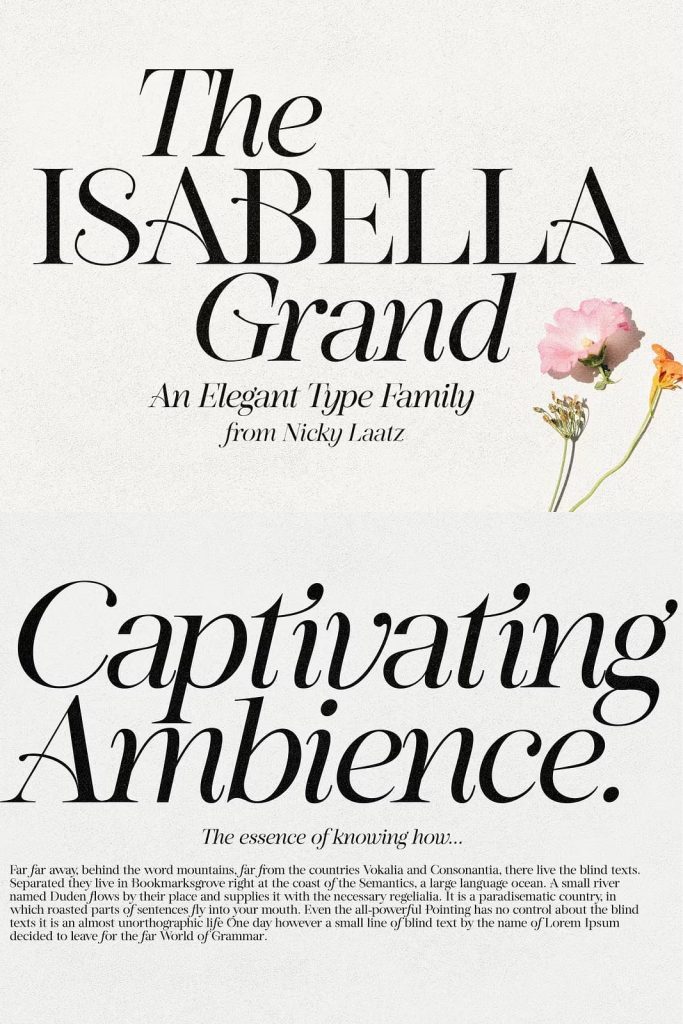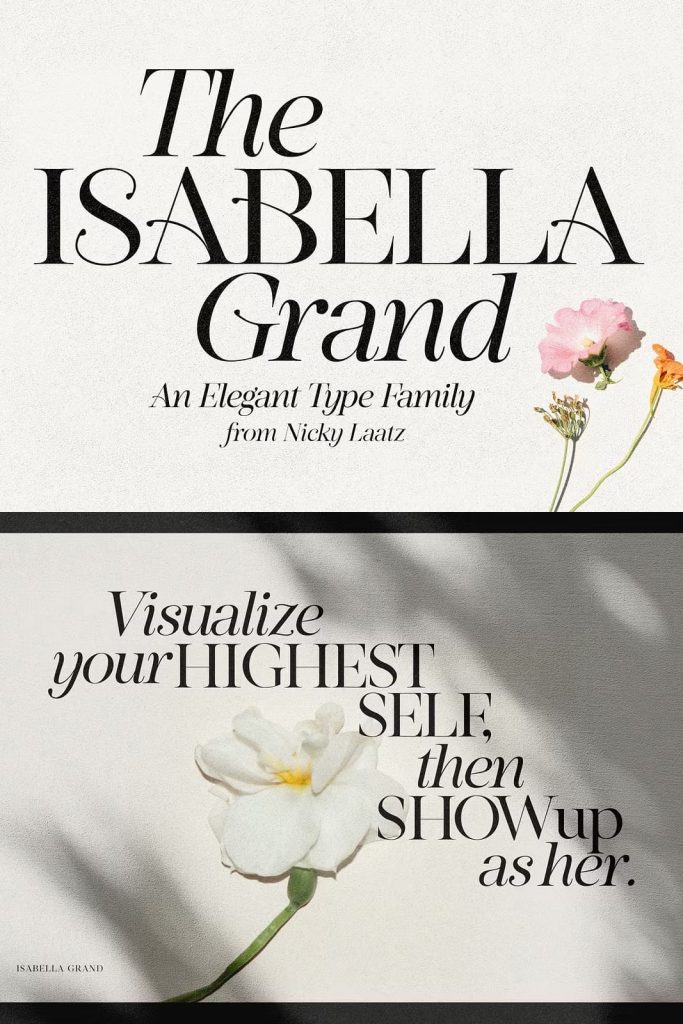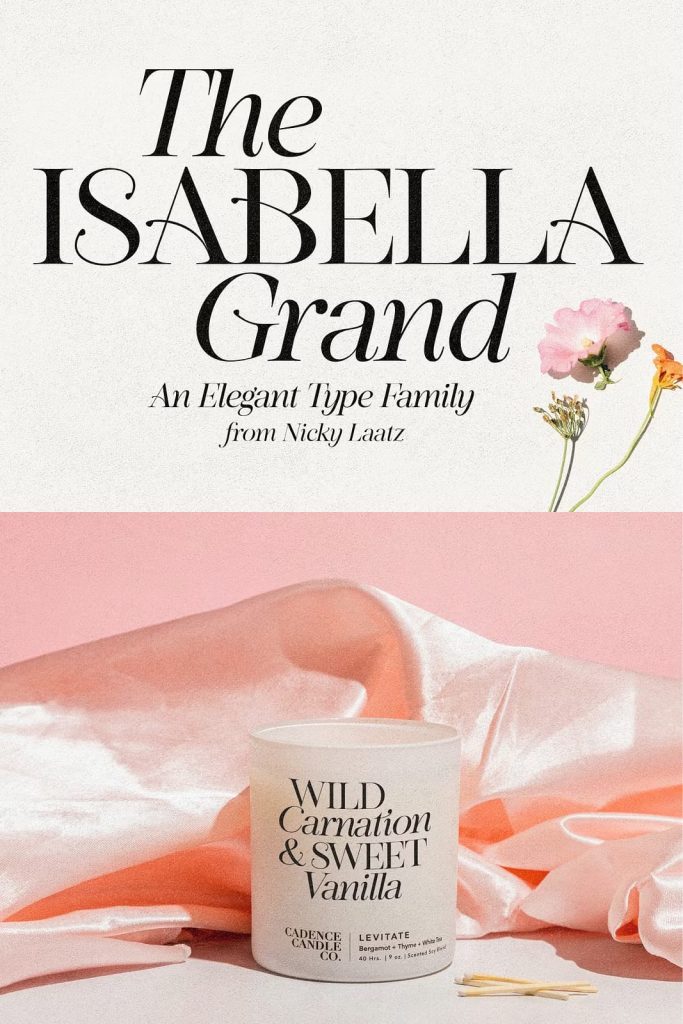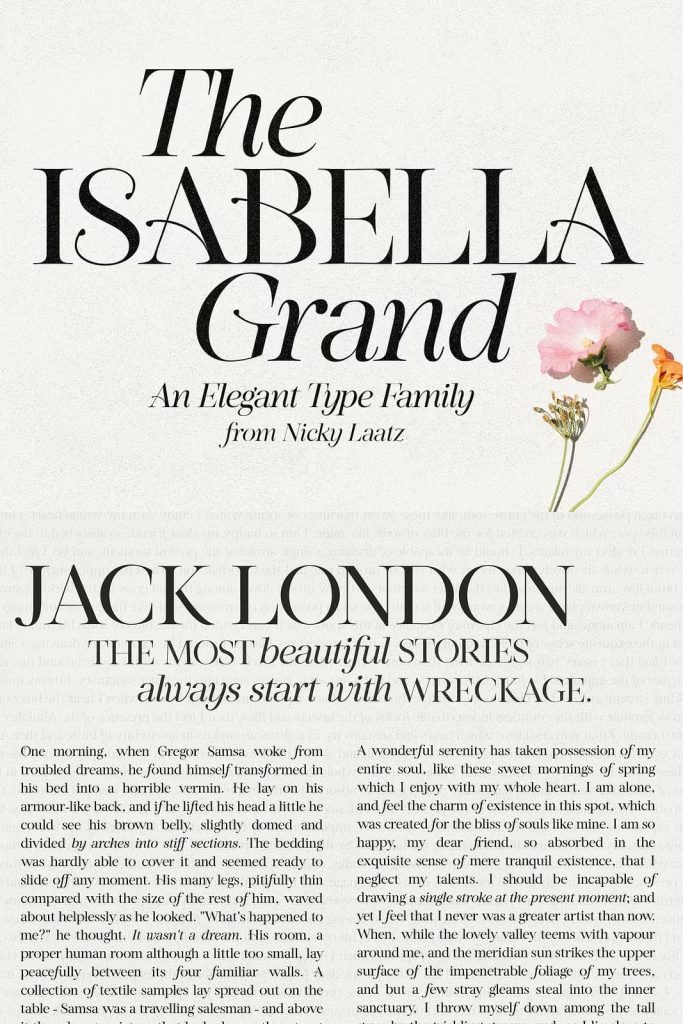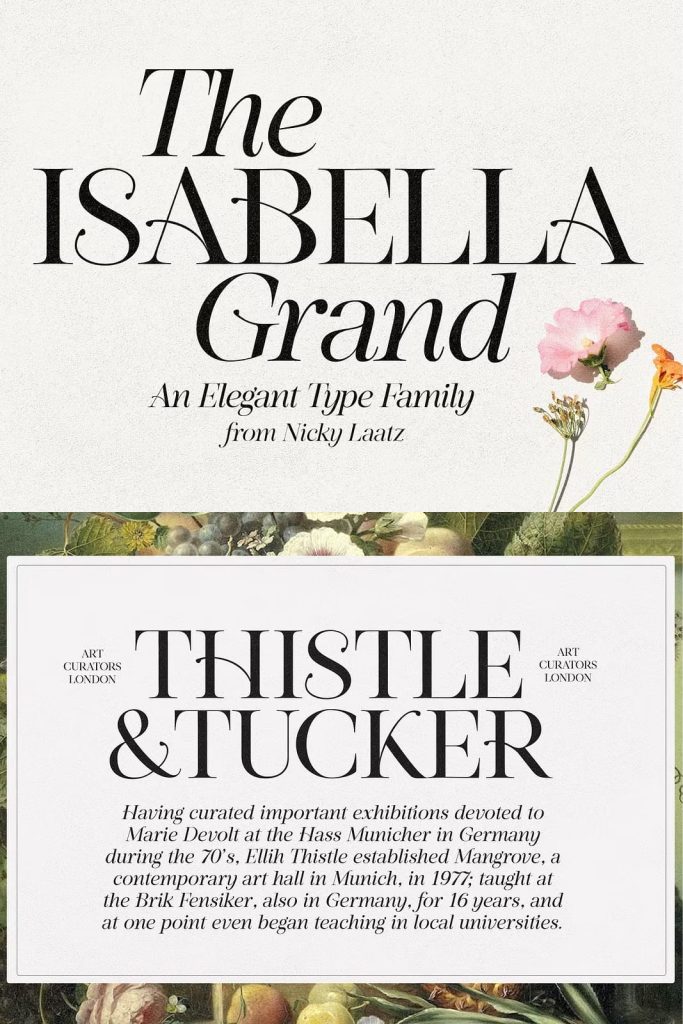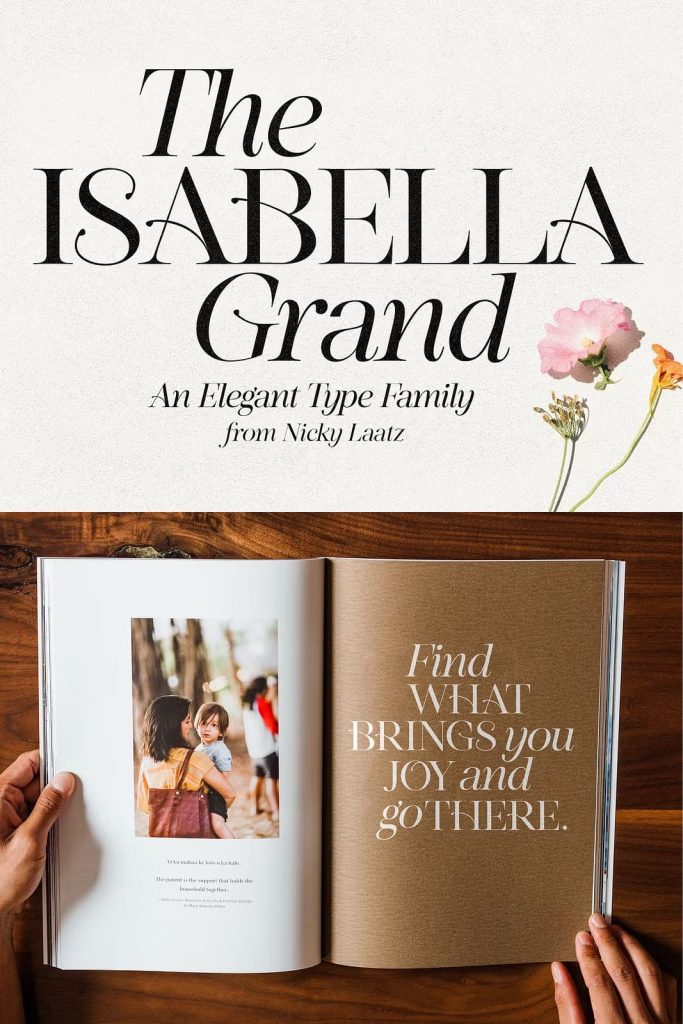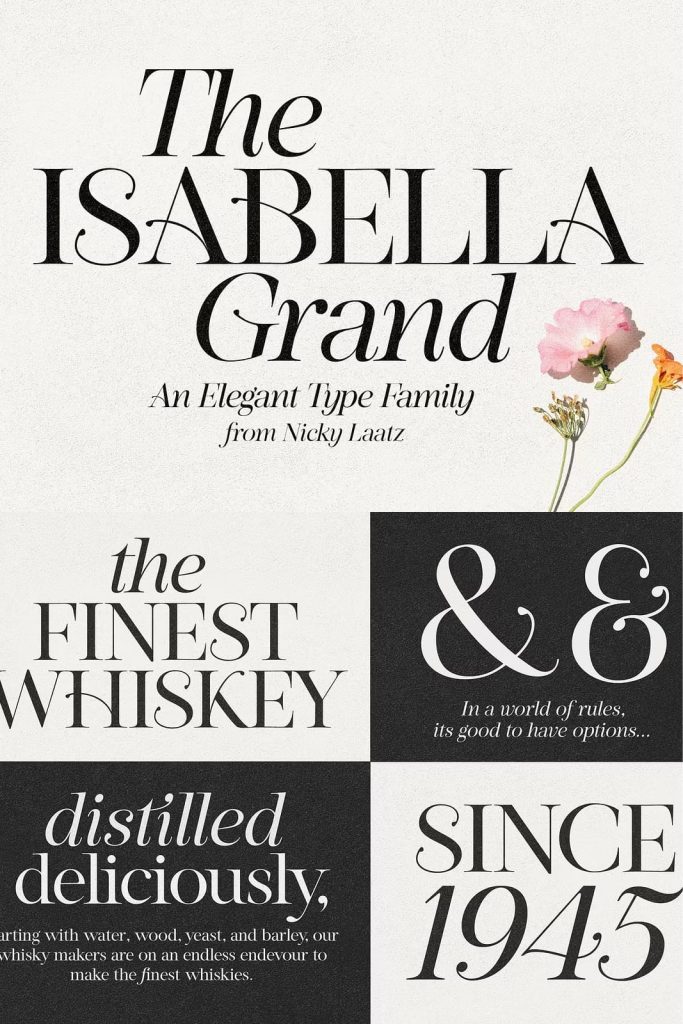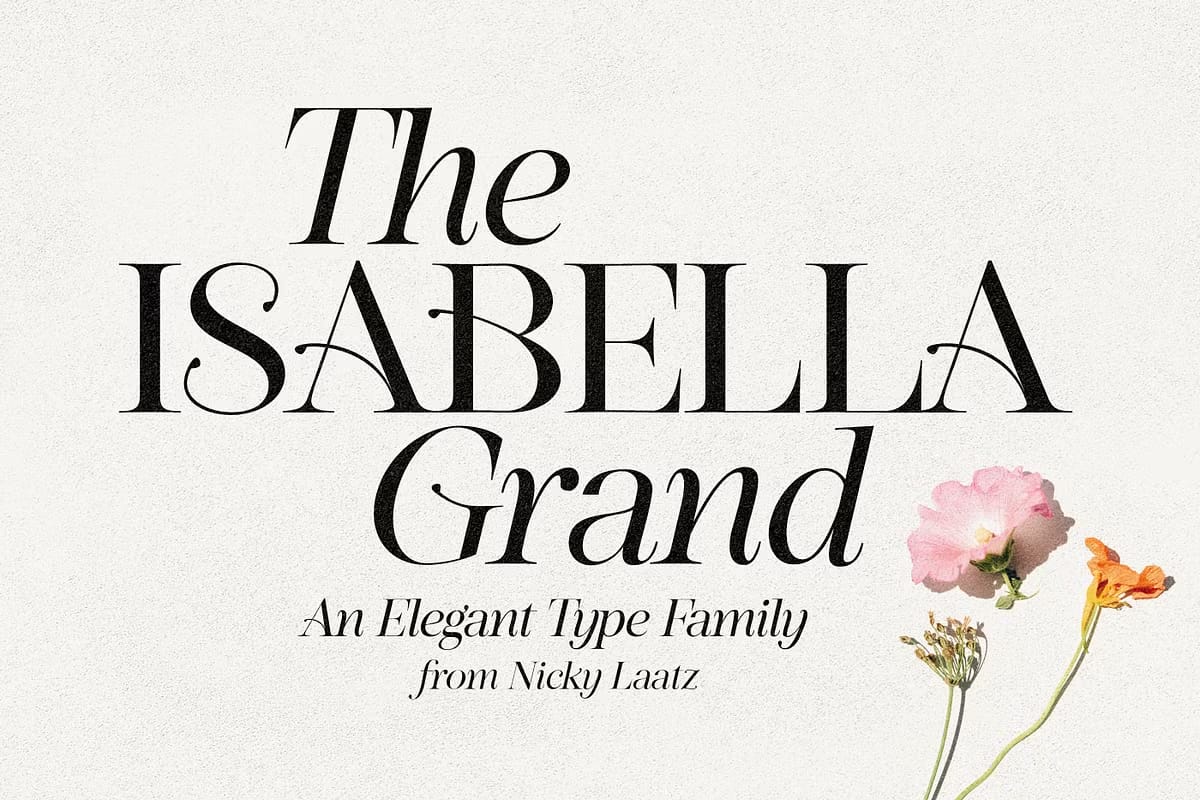
Isabella Grand Typeface
Style and Grace personified – say hello to Isabella Grand. This typeface has two main styles, Regular and Italic, that are designed to work elegantly in unison and apart.
The serif has a boldy different ‘ f’, which sets it apart from regular serifs…..as Isabella Grand likes to stand out from the rest. A regular ‘f’ is included in its alternates, and a extra font style with a regular f is included for projects that require a more staid elegance.